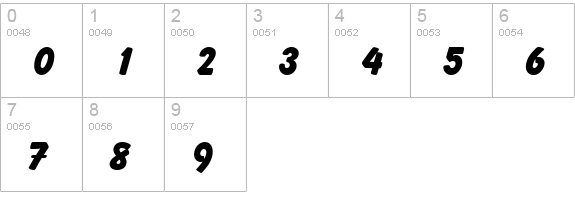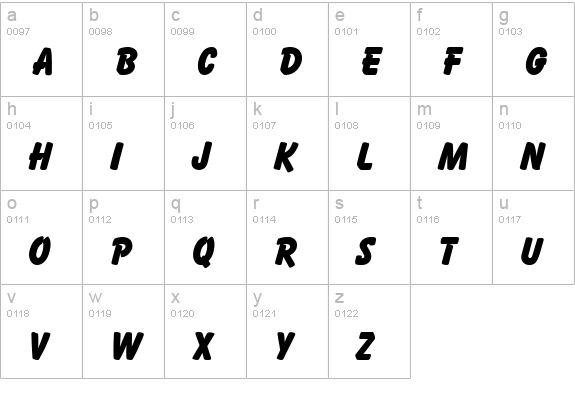
The Balloon font is a whimsical and playful typeface that brings a touch of fun and creativity to any design project. Its rounded edges and bubbly characters give off a cheerful and lighthearted vibe, making it perfect for anything from birthday invitations to children's book covers. What makes the Balloon font even more appealing is the fact that it is available for free download at FontsMarket.com. This means that you can easily add this charming font to your collection without any cost involved. So go ahead and let your imagination soar with the Balloon font, as you create delightful and eye-catching designs that are sure to make a lasting impression.